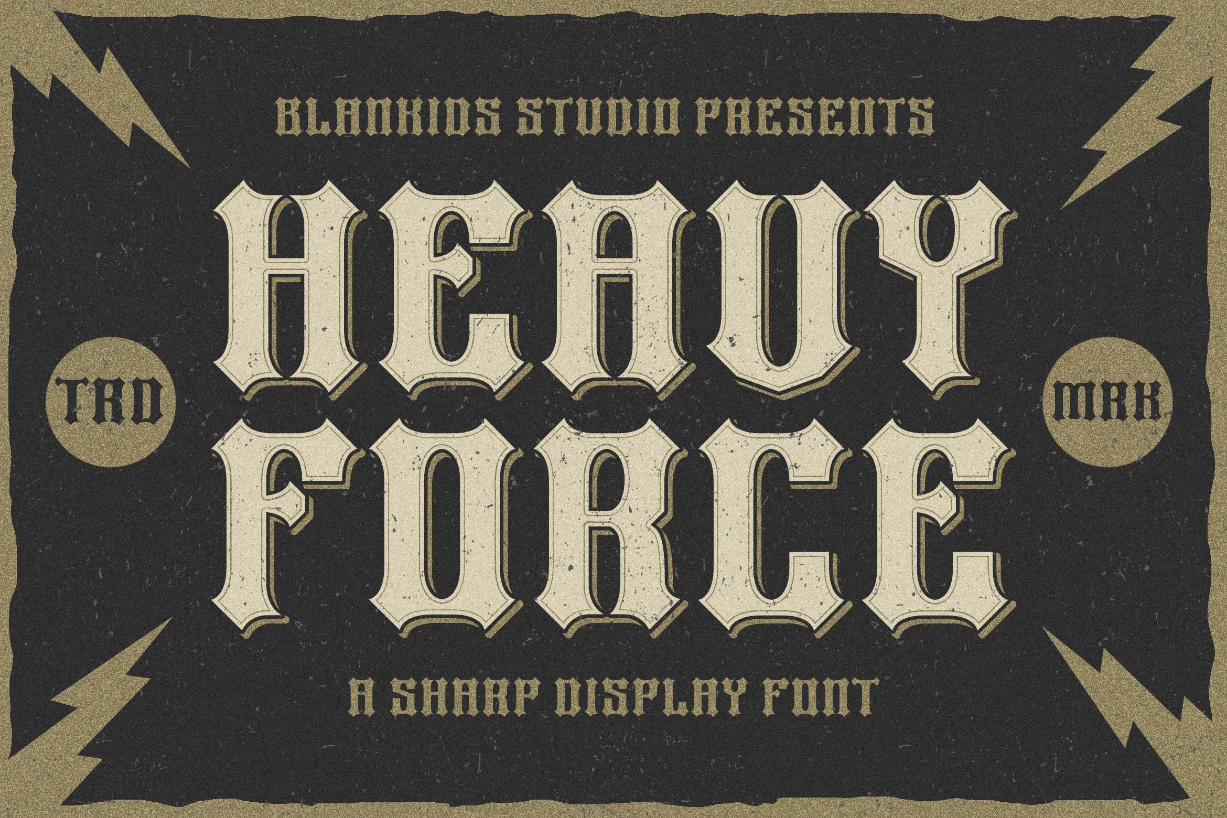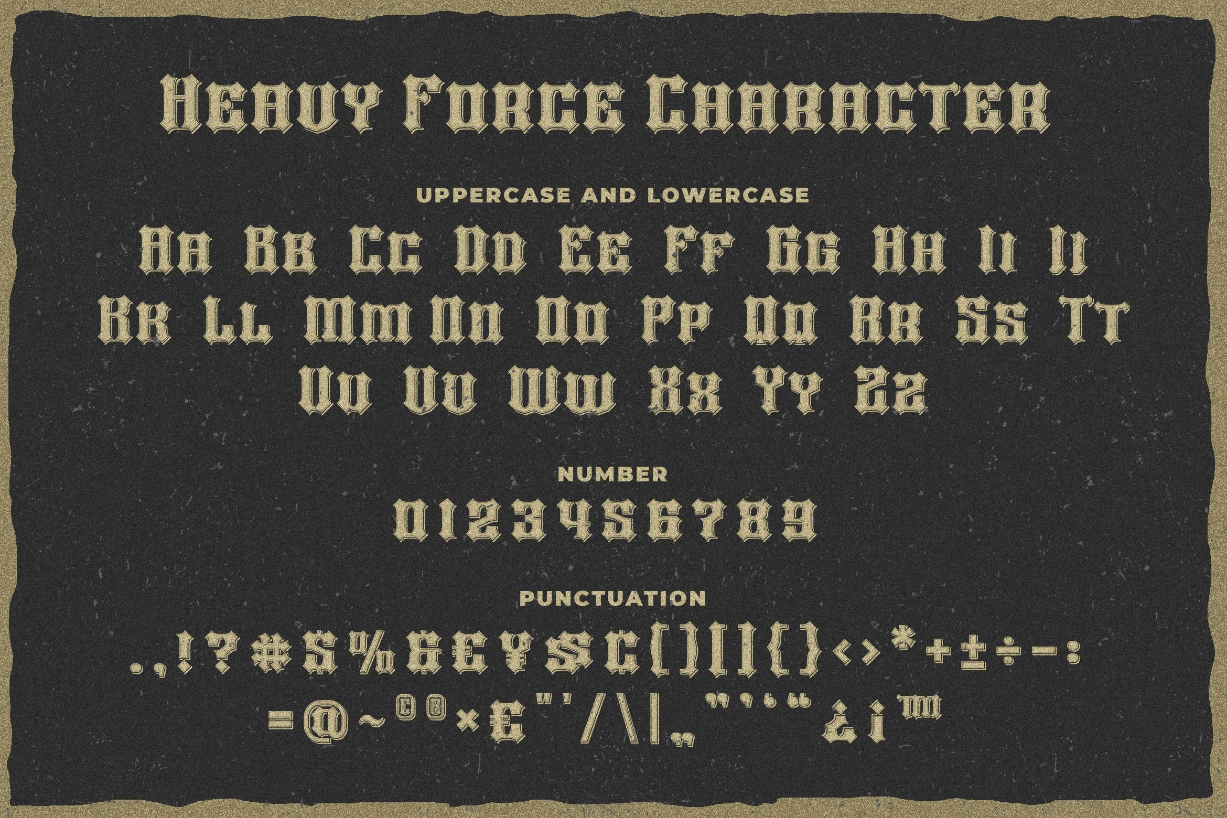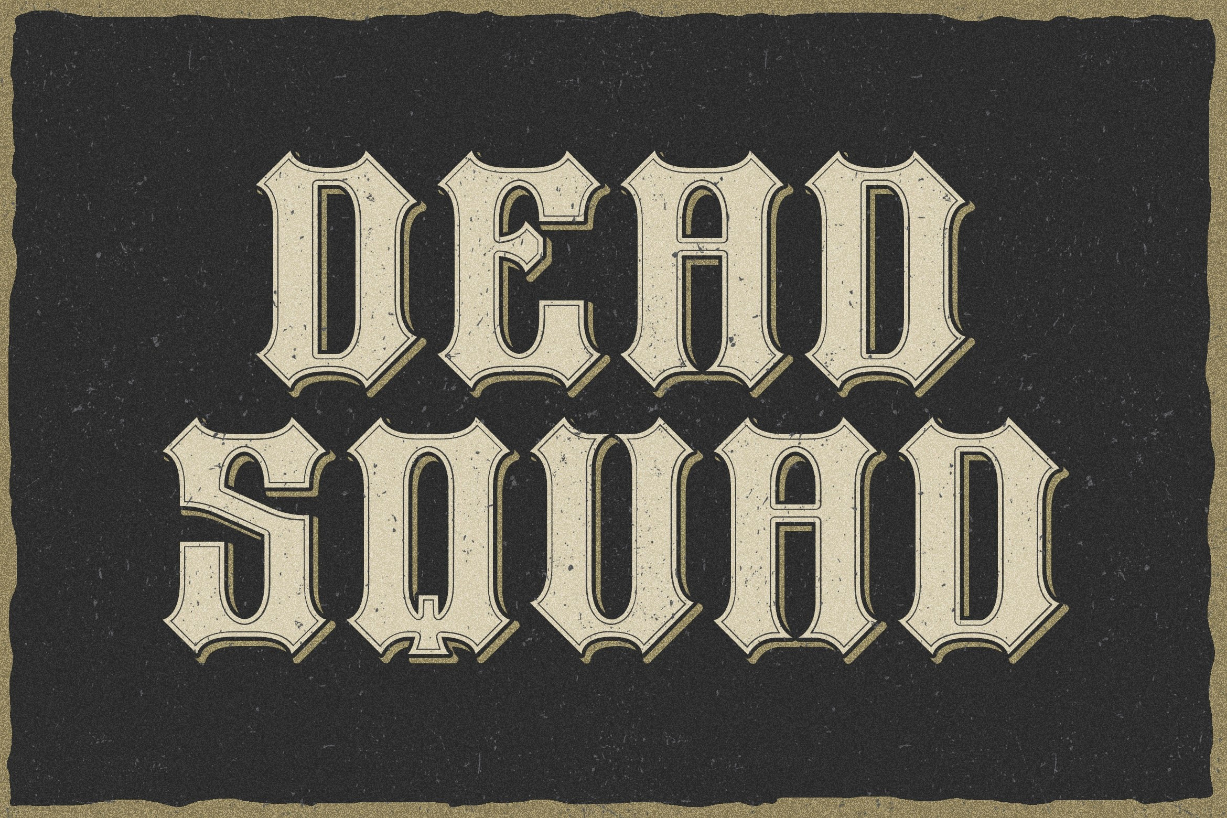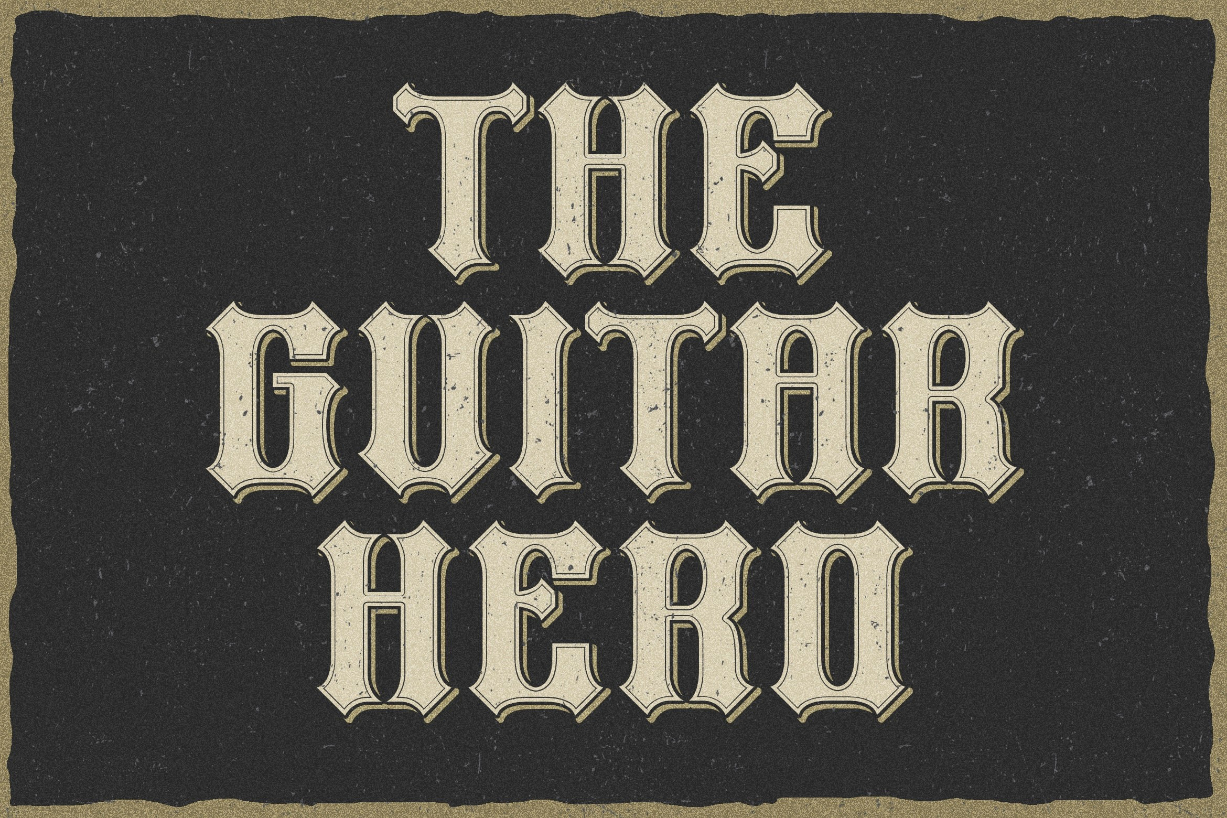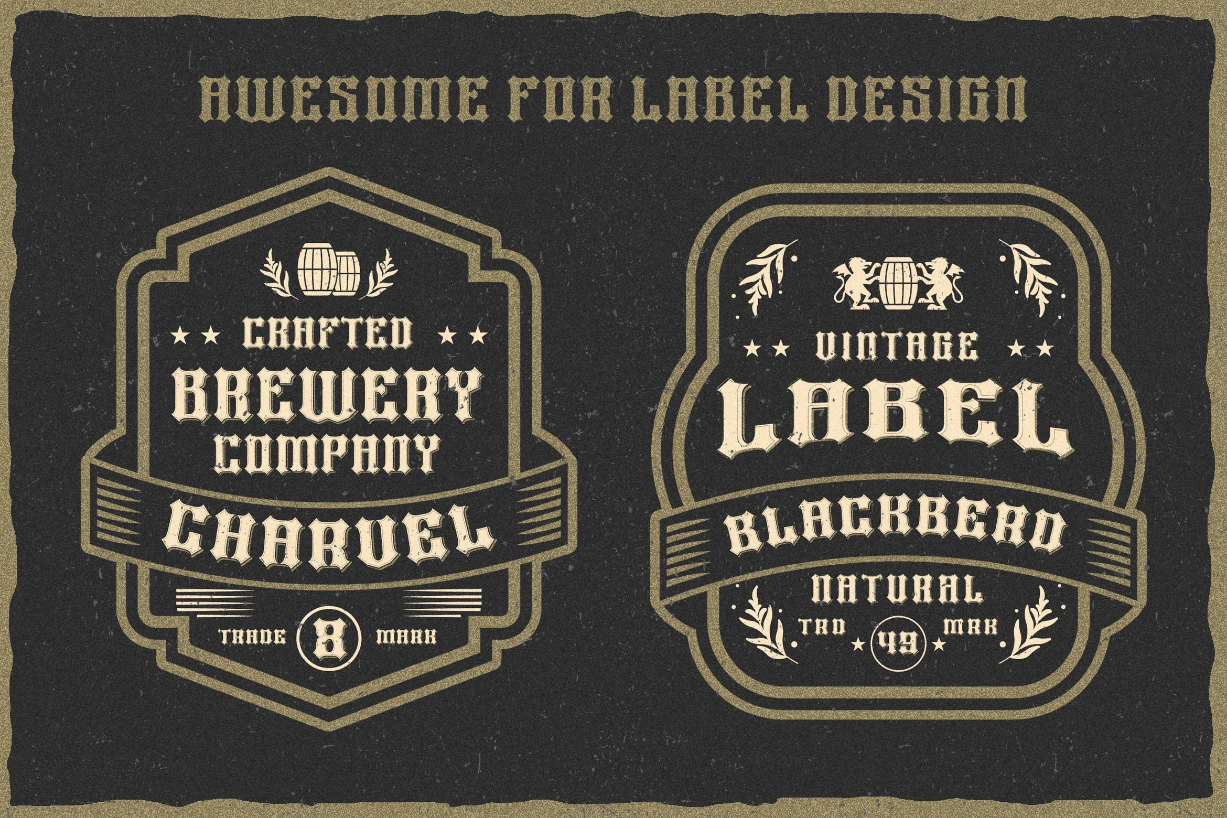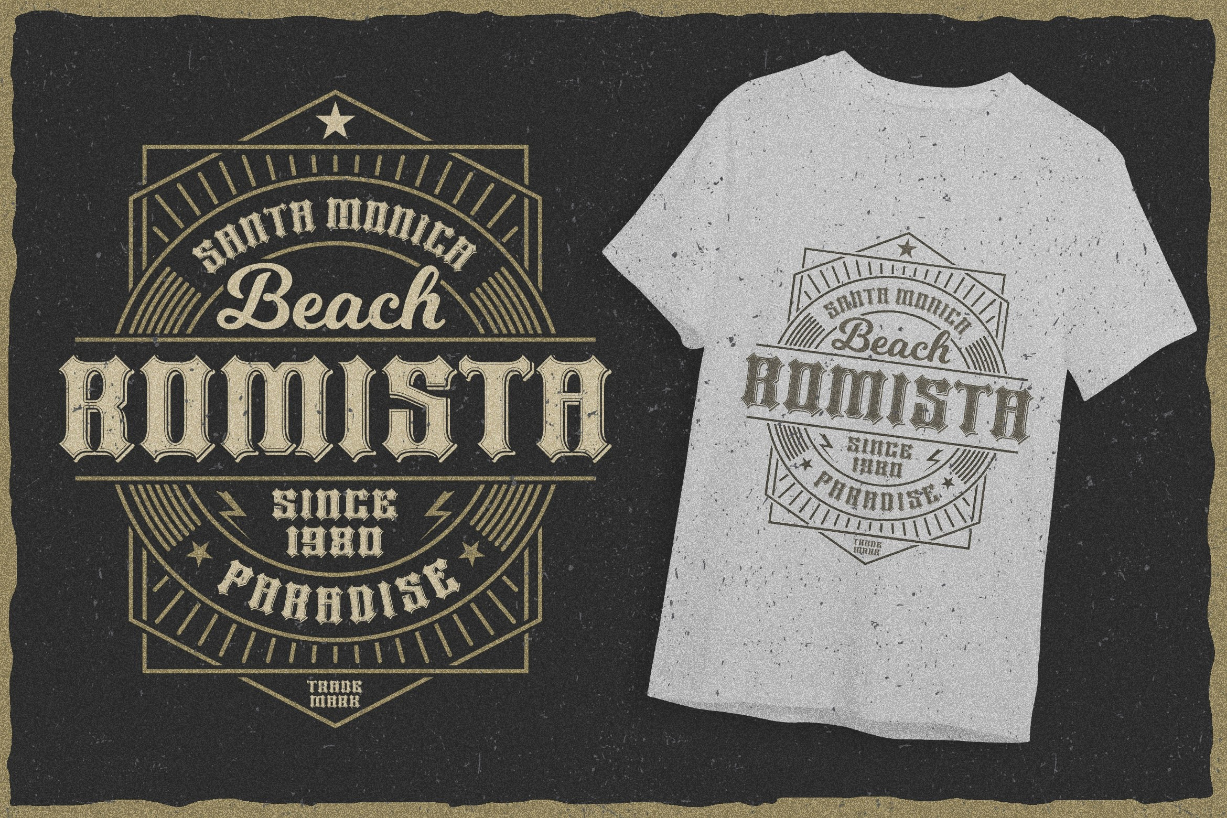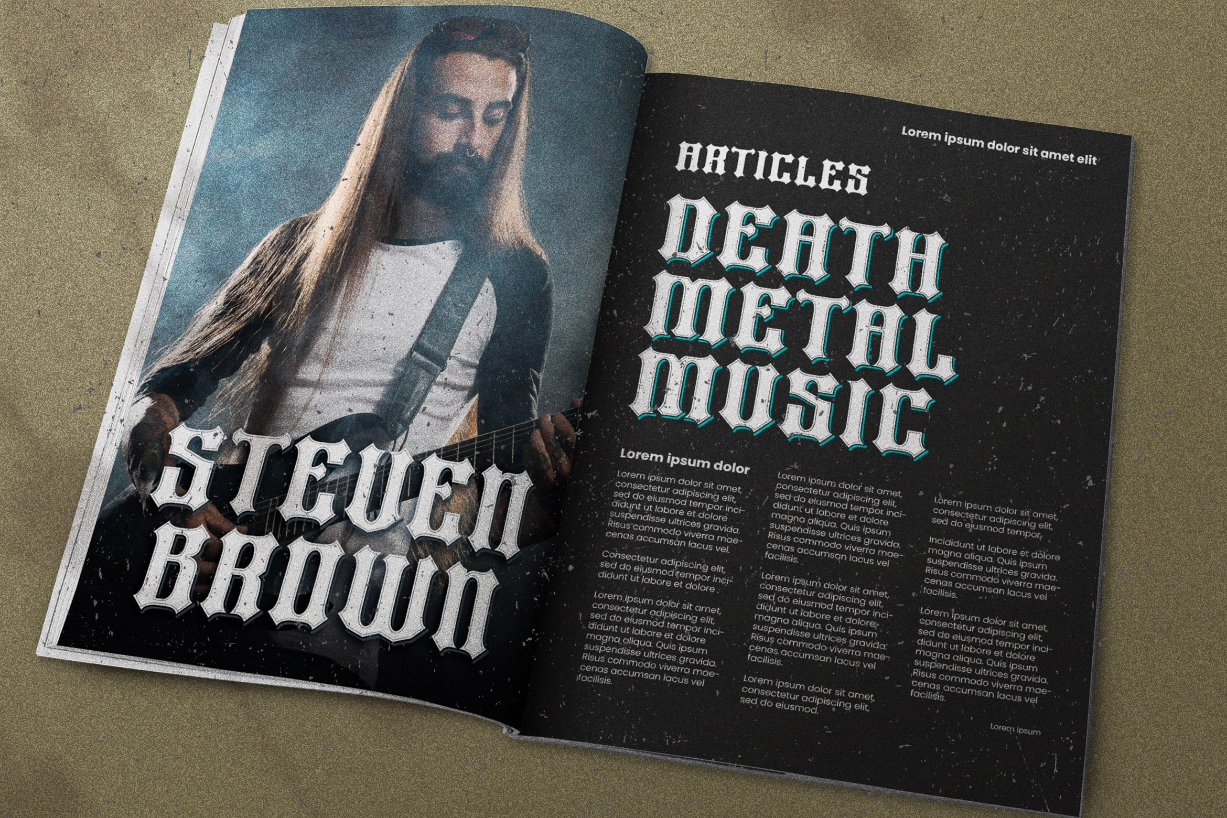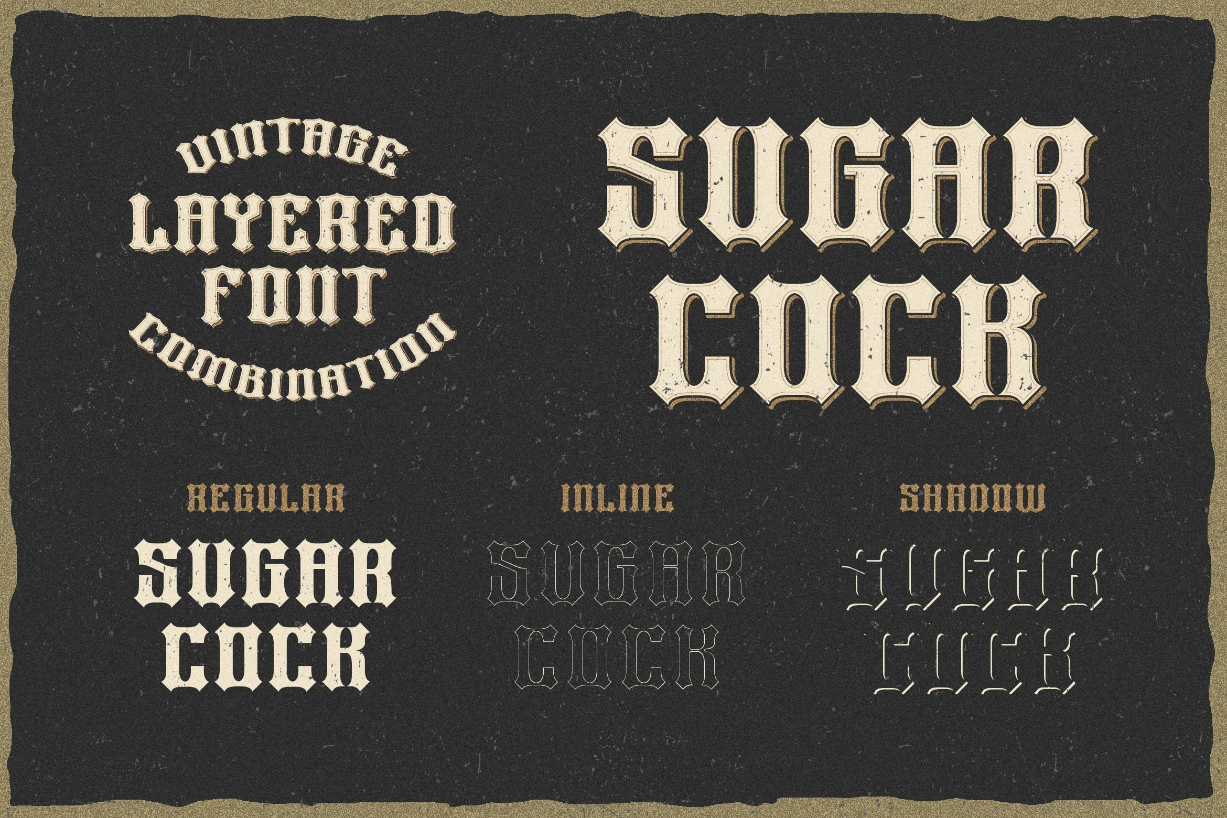
Heavy Force Font
About Heavy Force Font
Heavy Force is a blackletter font that is perfect for any project. It has a traditional look, providing a dramatic and eye-catching style. It’s versatile and timeless, making it an ideal choice for any design.